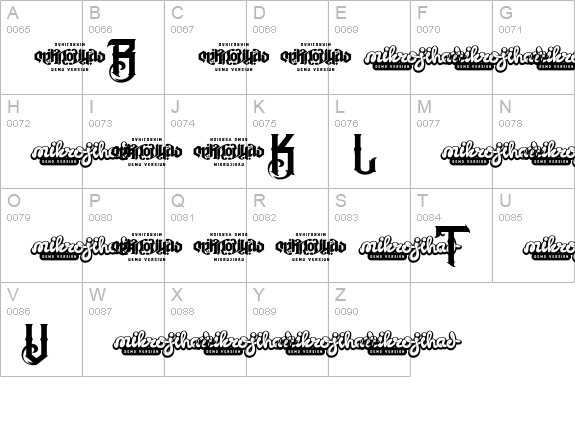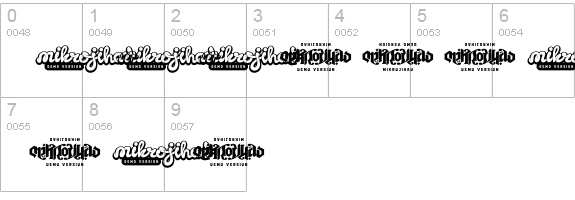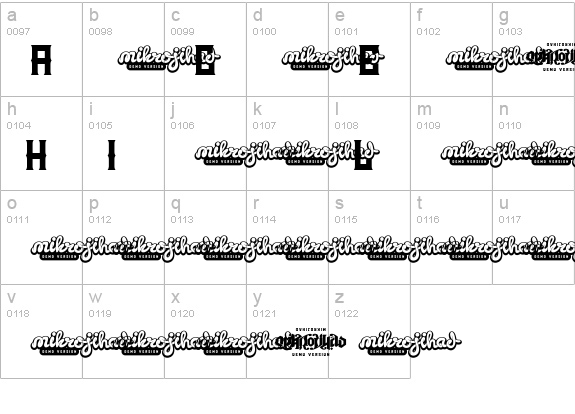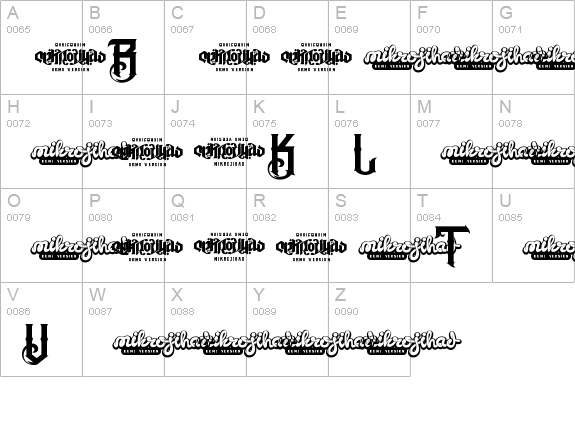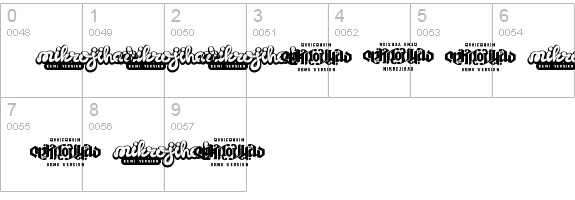
The Black Veil DEMO is a maximum-weight, dramatic variant in the The typeface family \xE2\x80\x94 well suited to maximum-impact headlines, posters, and packaging.
The Black Veil DEMO font is a striking and highly versatile typeface that effortlessly blends elegance with a touch of mystery. Its captivating design features bold, expressive letterforms adorned with intricate details, creating a truly unique and eye-catching look. This font offers a sense of sophistication and intrigue, making it perfect for a wide range of creative projects. Whether you're designing a logo, crafting a poster, or creating stunning typography for a website, The Black Veil DEMO font will command attention and leave a lasting impression. With its free availability to download at FontsMarket.com, this font allows designers and creatives to add a touch of enigma to their work without breaking the bank. It offers the perfect balance between affordability and quality, ensuring that everyone can access and utilize its captivating charm. The Black Veil DEMO font is designed to be easily legible, ensuring that your message is conveyed clearly and effectively. Its carefully crafted letterforms maintain a perfect balance between boldness and readability, making it suitable for a variety of design applications. Embrace the allure and mystique of The Black Veil DEMO font and let your creativity soar. Download it for free at FontsMarket.com and unlock a world of possibilities for your next design project.